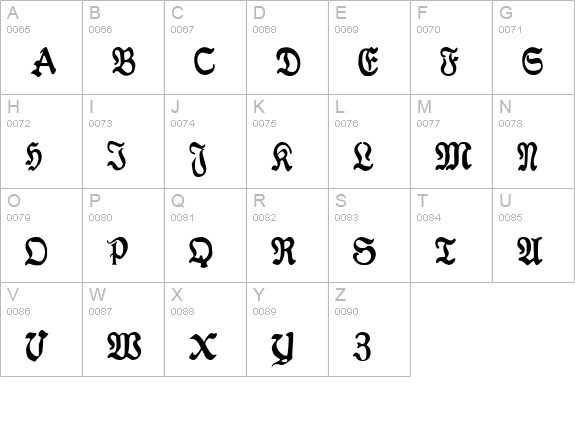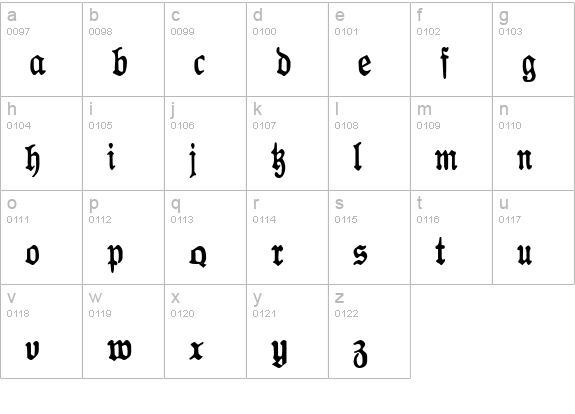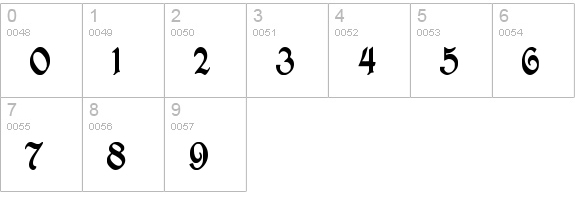
Antraxja Goth 1938 font is a stunning display typeface that exudes a vintage and gothic vibe. With its intricate details and elegant curves, this font is perfect for creating eye-catching designs that demand attention. The unique blend of classic and modern elements in Antraxja Goth 1938 font makes it a versatile choice for a wide range of projects, from branding to packaging to editorial design. What makes Antraxja Goth 1938 font even more appealing is that it is available for free download at FontsMarket.com. This means that you can easily access this exceptional font and use it in your creative endeavors without any cost. Whether you're a designer looking to add a touch of sophistication to your work or a hobbyist exploring new fonts, Antraxja Goth 1938 font is sure to impress with its timeless charm and distinctive style.